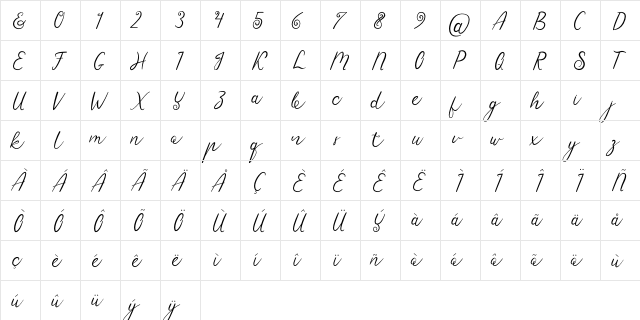
Sensitype Regular
| Designer | Ef Studio |
Design Context for Sensitype Typeface
Sensitype is a composed and adaptable typeface that performs quietly and consistently across a wide range of design contexts.